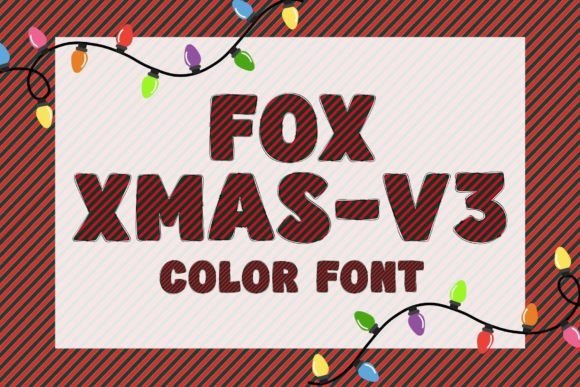
Deck the Halls with the Perfect Font
As the holiday season approaches, you’re probably brainstorming ideas for your festive designs, from invitations to social media posts. You want to capture the magic of the season in your creations, but sometimes, the right font can make all the difference. That’s where the Fox Xmas-v3 Font comes in – a delightful, festive decorative color font that’s sure to add a touch of holiday cheer to your designs.
This adorable font is perfect for adding a personal touch to your projects. Whether you’re a seasoned designer or just starting out, the Fox Xmas-v3 Font is a valuable addition to your toolkit. With its authentic feel and versatility, you can use it to create a wide range of designs, from beautiful stationery to eye-catching social media posts.
Fox Xmas-v3 Font Key Features
- Unique Character Set: Fox Xmas-v3 Font features a wide range of festive characters, including Christmas-themed icons, ornaments, and symbols, making it an ideal choice for holiday-themed designs.
- Font Style: The font has a playful, modern design with a bold and vibrant aesthetic, perfect for creating eye-catching and festive designs.
Designer Review: Fox Xmas-v3 Font
I recently had the chance to work with the Fox Xmas-v3 font, and I have to say it’s a unique and fun addition to any holiday-themed design project. ✨ Here are a few things that really stand out to me:
- It’s a great way to add some festive flair to your designs without feeling too over-the-top or cheesy.
- The font is highly customizable, with a range of sizes and styles that can be easily adjusted to fit your design needs.
- The character set is comprehensive, making it easy to find the perfect character for your design.
That being said, there are a few limitations to be aware of: ⚠️
- The font may not be suitable for all design projects, particularly those that require a more serious or formal tone.
- The font’s design can be a bit hit-or-miss, with some characters looking more dated or cartoonish than others.
Overall, I think the Fox Xmas-v3 font is a great choice for holiday-themed designs, but may not be the best fit for all projects. With a little creativity and customization, it can add a fun and festive touch to your designs.
Practical Application Guide for Fox Xmas-v3 Font
The Fox Xmas-v3 font is perfect for creating festive holiday designs, such as:
- Christmas cards and invitations
- Holiday-themed social media graphics
- Seasonal posters and flyers
Remember to experiment with different font sizes, colors, and styles to get the most out of this unique font.